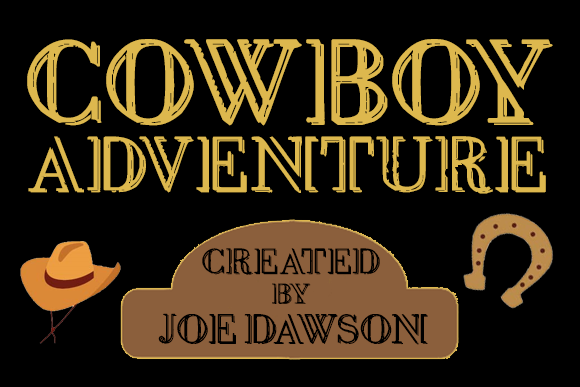
Introducing Cowboy Adventure, the font that'll lasso your designs and take them on a wild, wild ride! This bold and captivating display font is the brainchild of Joe Dawson, a typographic wrangler who knows how to tame the digital frontier. With its strong, decorative strokes, Cowboy Adventure is the perfect font for adding a touch of adventure and fun to any project, whether you're designing posters, logos, invitations, or social media graphics.
Saddle up and let Cowboy Adventure take you on a typographic journey through rugged landscapes, dusty trails, and wide-open spaces. This font is a maverick, a rebel with a cause – to bring a sense of excitement and adventure to your designs. Its bold and playful characters are like little cowboys, each one bursting with personality and ready to rope in your audience and keep them hooked.
With its unique charm and undeniable charisma, Cowboy Adventure is the perfect font for those who dare to be different, who crave adventure, and who aren't afraid to let their creativity run wild. So, grab your Stetson, buckle up your boots, and let Cowboy Adventure lead you on a typographic adventure that'll leave your audience howling for more!
Features that make Cowboy Adventure the sheriff of all fonts:
- Decorative and captivating, perfect for making a statement
- Strong and bold characters that demand attention
- Perfect for a wide range of design projects, from posters to logos
- Lassoes your audience and keeps them hooked
- Unique and charming, with a touch of wild, wild fun